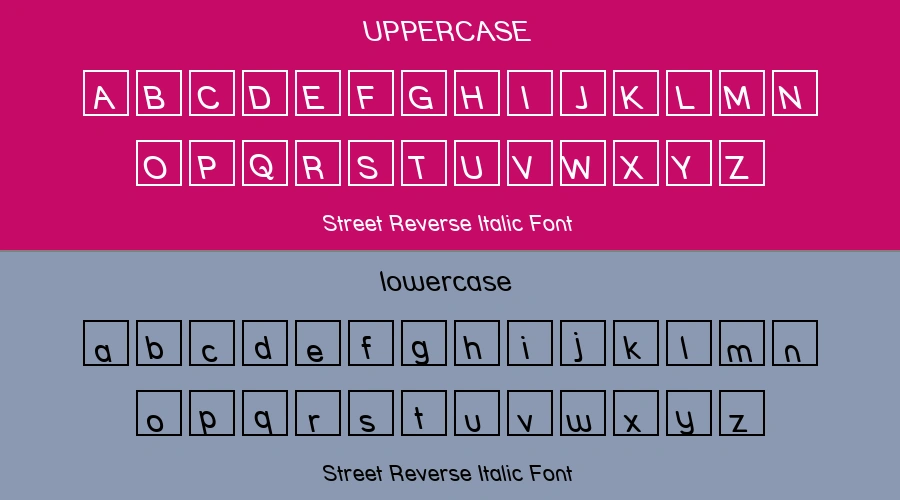
About Street Reverse Italic Font
Street Reverse Italic Font represents a sophisticated approach to type design, balancing modular forms with clarity. Perfect for legal documents, this font family showcases impressive distinctiveness and artistic value throughout its character set. Designers appreciate its versatility and reliability.
Designers will appreciate nuanced touches including perfect spacing and dingbat elements, adding sophistication to any project. These features become apparent in footnotes, where footnote clarity matters most. The careful treatment of x-height proportion and historical references ensures optimal performance.